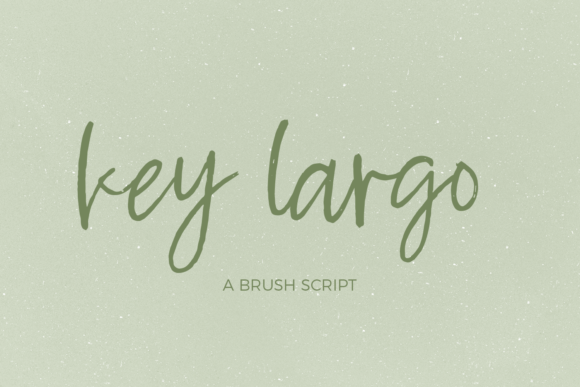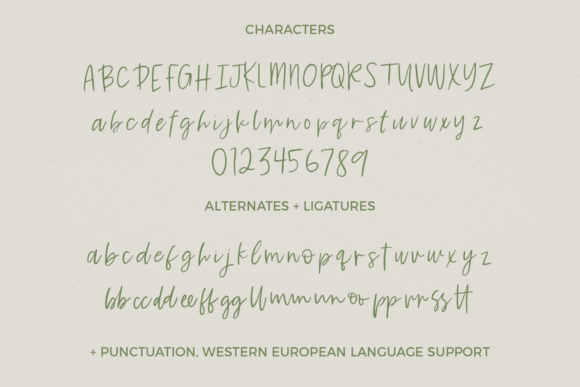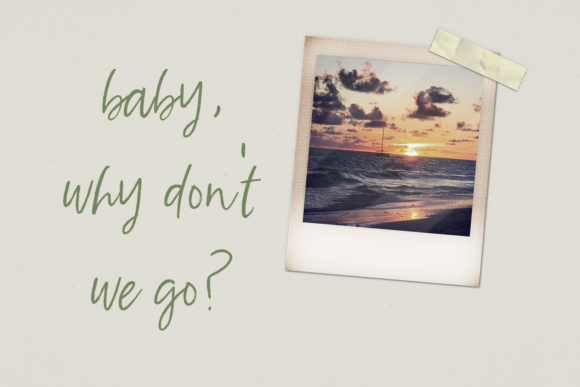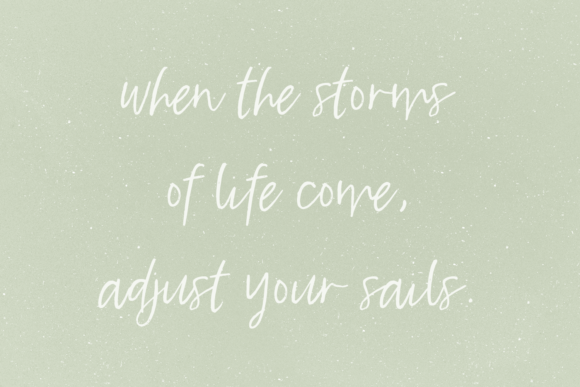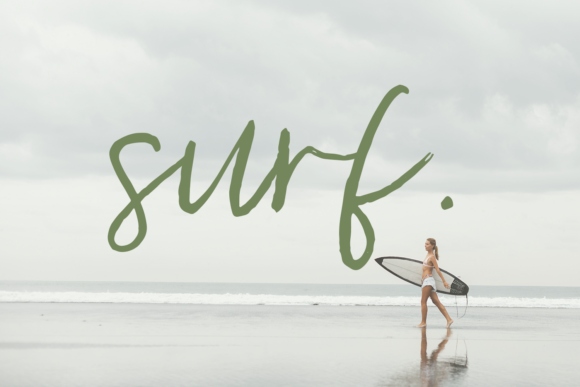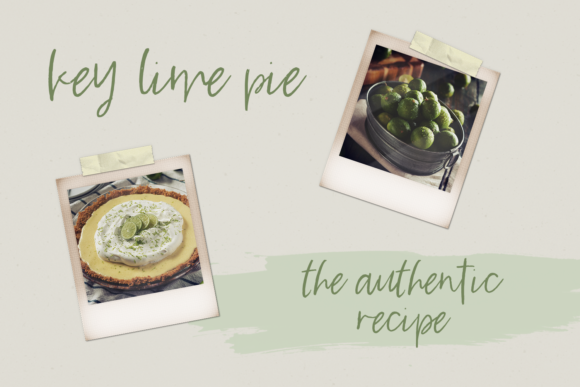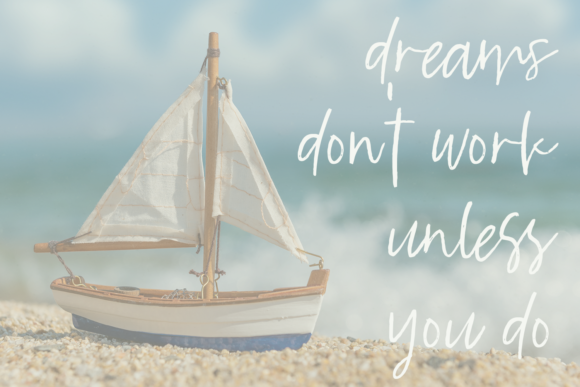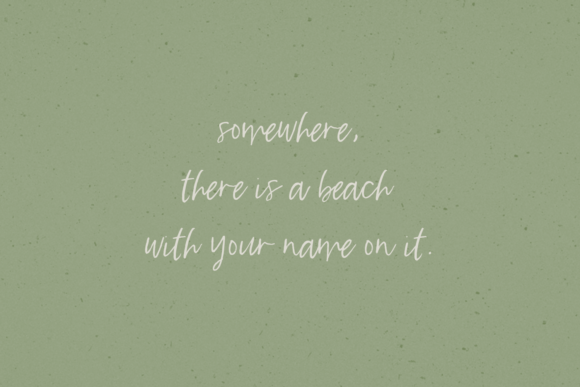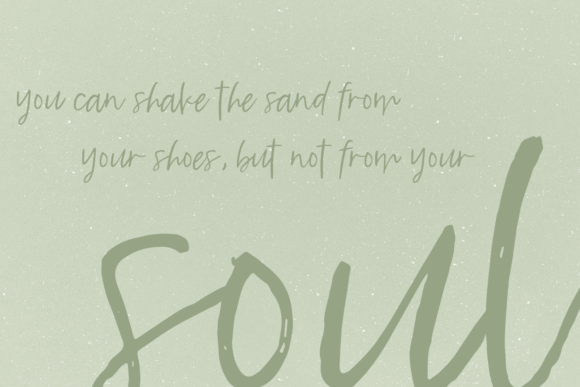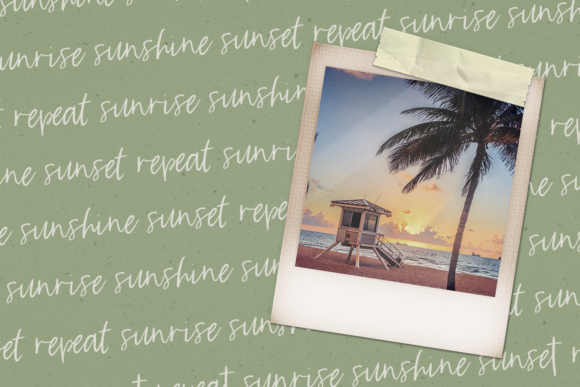
HomeScript FontsKey Largo Font Script Fonts Key Largo Font FacebookXPinterestWhatsApp Key Largo Font Poster 2 Key Largo Font Poster 3 Key Largo Font Poster 4 Key Largo Font Poster 5 Key Largo Font Poster 6 Key Largo Font Poster 7 Key Largo Font Poster 8 Key Largo Font Poster 9 Key Largo Font Poster 10 About Key Largo Font Key Largo is a casual brush script. It is perfect for logos, websites, quotes and any creative project. DOWNLOAD ON CREATIVE FABRICAThis font is sold and delivered by Creative Fabrica. Font Canyon may earn a commission if you buy through this link. People also explored Rustic Farmer Font Home Alone Font Saturday Font Bloshoming Font MFC Westport Monogram Lovely Symphony Font Cherish Font Tibson Script Font The Brixton Collection 352 0 TagsKey Largo Font Previous articleAneisha FontNext articleWaterssong Font LEAVE A REPLY Cancel reply Comment: Please enter your comment! Name:* Please enter your name here Email:* You have entered an incorrect email address! Please enter your email address here Website: Save my name, email, and website in this browser for the next time I comment. Personal Use Free Banana Valentine Personal Use Free Read more about this font Sushi Day Personal Use Free Read more about this font Bruttney Personal Use Free Read more about this font Planet Benson 2 Personal Use Free Read more about this font BLOG The 10 Best Handwriting Fonts to Add Personality to Your Designs 10 of the Best Handwriting Fonts for Adding Personality to Your Designs There will undoubtedly be no other better choice than handwriting fonts to give... Transform Your Website: Elevate Your Typography with 7 Best Web Font Generators Where to Buy American Fonts Online in 2024 Elegant Wedding Invitation Fonts – Handwritten & Script Fonts